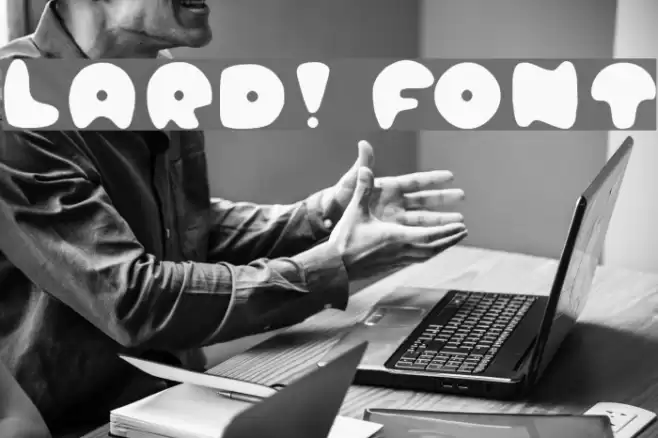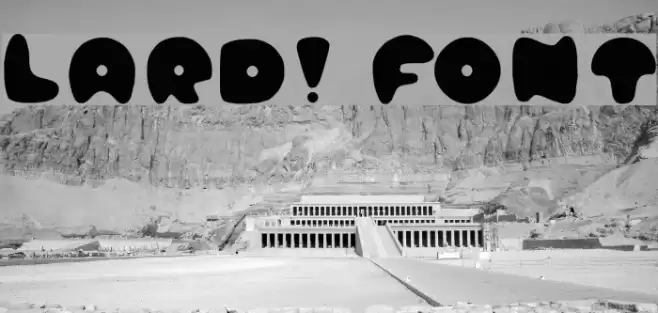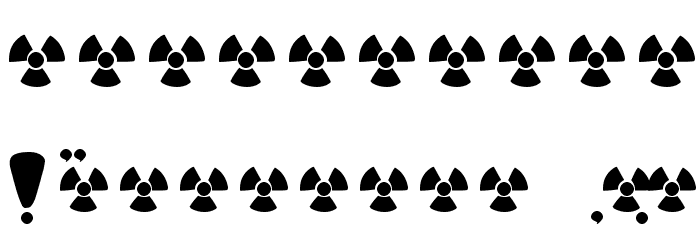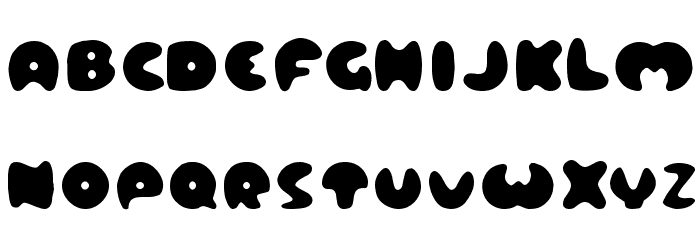
Lard! Font
Lard! Description
This playful and bold font features rounded, bubbly characters that exude a sense of fun and whimsy. The letters are thick and uniform, with a consistent stroke width that gives them a solid and substantial appearance. The overall design is reminiscent of cartoon or comic styles, making it ideal for projects that require a lighthearted and approachable feel. The uppercase and lowercase letters maintain a cohesive look, while the numbers and special characters follow the same design principles, ensuring a harmonious appearance across all text. The font's unique style makes it stand out, perfect for capturing attention in creative and informal settings.
A bold, playful font with rounded, bubbly characters ideal for fun and whimsical designs from Decorative fonts.
- Proposed Projects: Children's books, comic strips, playful branding, party invitations, and creative posters.
- Overall Style: Playful